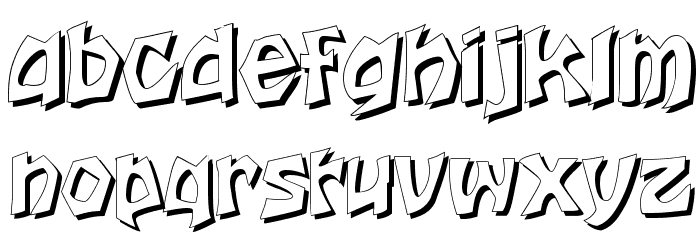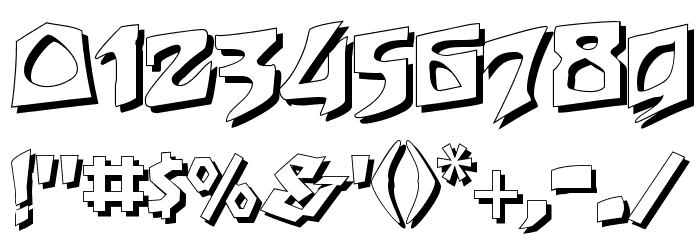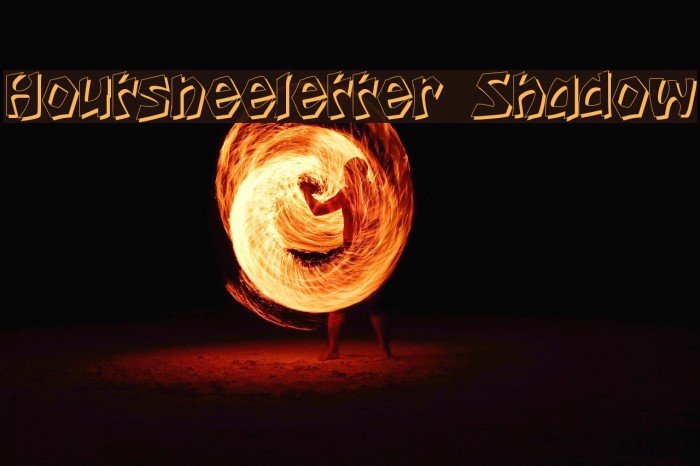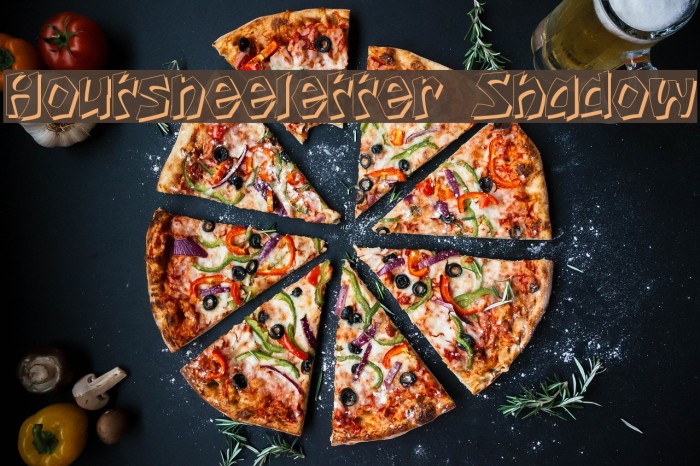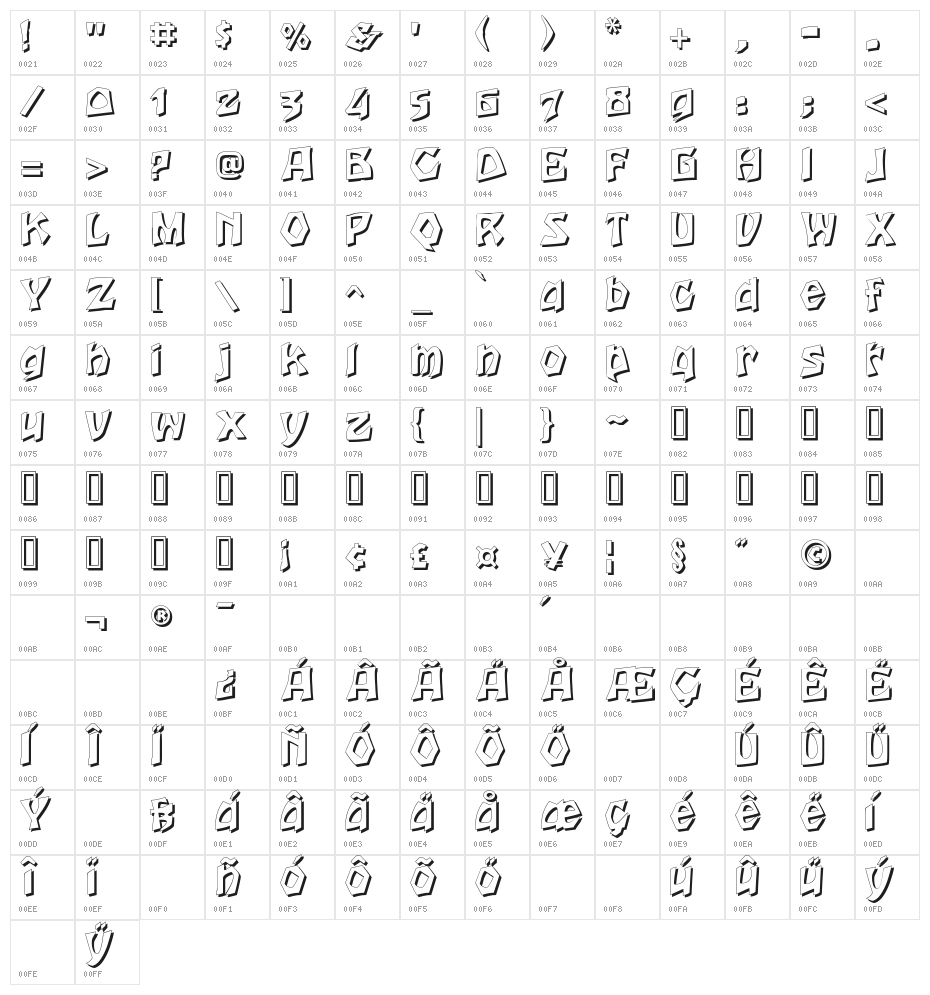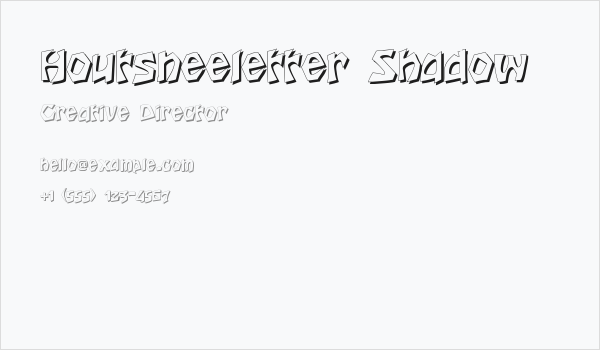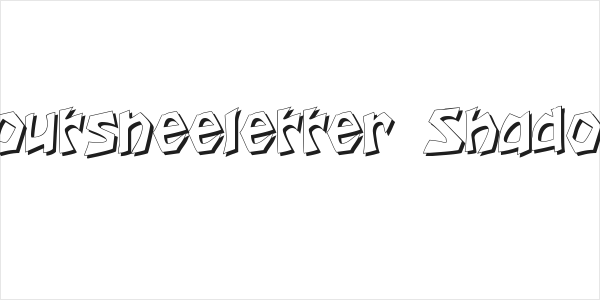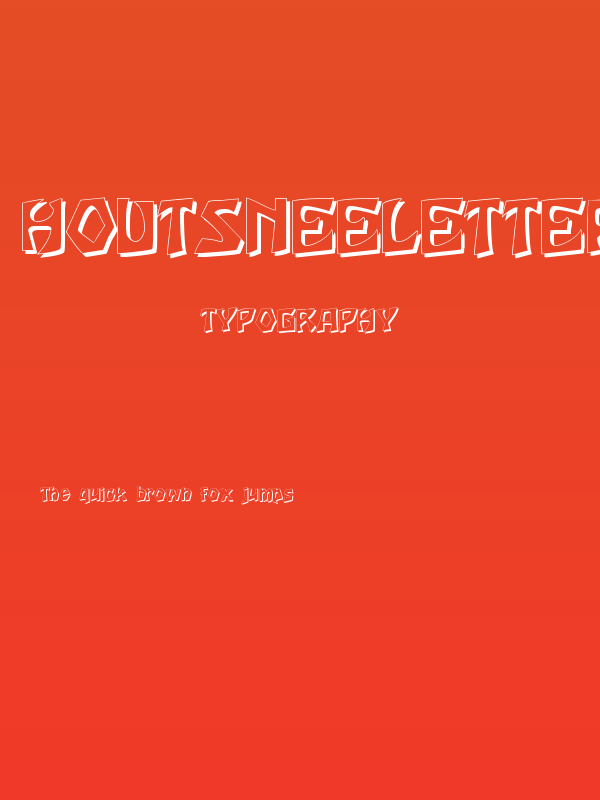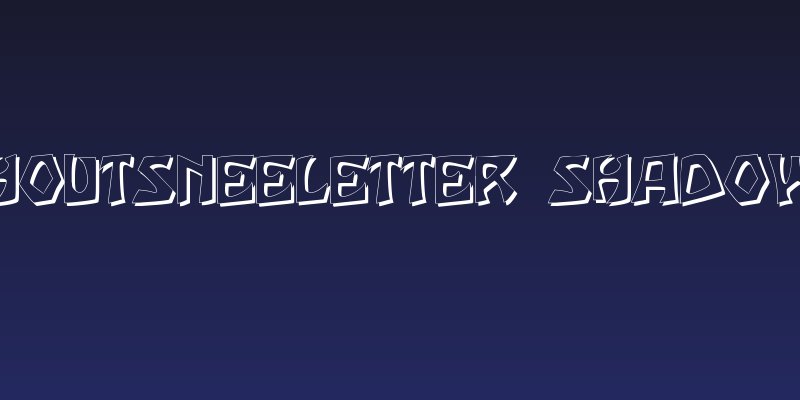
Houtsneeletter Shadow Font
This font features a bold, three-dimensional shadow effect that gives it a striking and dynamic appearance. The characters are designed with sharp, angular edges, creating a sense of movement and energy. The shadowing adds depth, making each letter appear as though it is popping off the page. This style is reminiscent of graffiti or street art, with a modern twist that captures attention. The uppercase and lowercase letters maintain consistency in their boldness and shadowing, while the numerals and special characters are equally stylized, ensuring a cohesive look across all text elements.
A bold, shadowed font with a dynamic, graffiti-inspired style.
- Proposed Projects: Ideal for projects needing a bold statement, such as posters, album covers, or urban-themed branding.